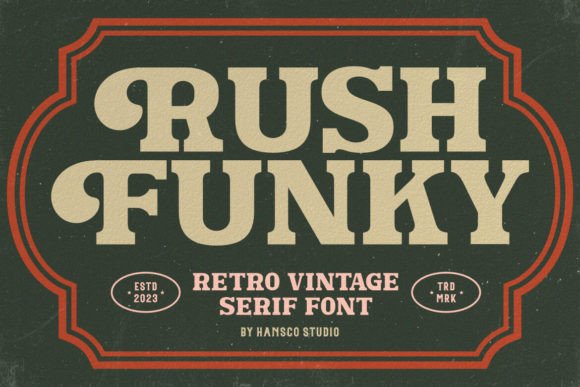
Rush Funky: The Key to Unleashing Your Design Prowess
Prepare to be mesmerized by Rush Funky, the vintage-inspired serif font that will transport your designs to a bygone era of charm and sophistication. Let your imagination run wild as you explore the vast creative possibilities offered by this extraordinary typeface.
With its intricate curves, elegant serifs, and timeless appeal, Rush Funky will add a touch of class to any project, whether it's a captivating logo, eye-catching packaging, or a heartfelt message. Its versatility extends from the digital realm to the physical world, making it perfect for Cricut projects, T-shirt designs, and stunning posters that demand attention.
Elevate your Instagram feed, YouTube videos, or website with the distinctive charm of Rush Funky. Its multi-lingual support ensures that your designs resonate with a global audience, while its compatibility with popular design platforms like Canva and Corjl makes it a breeze to use.